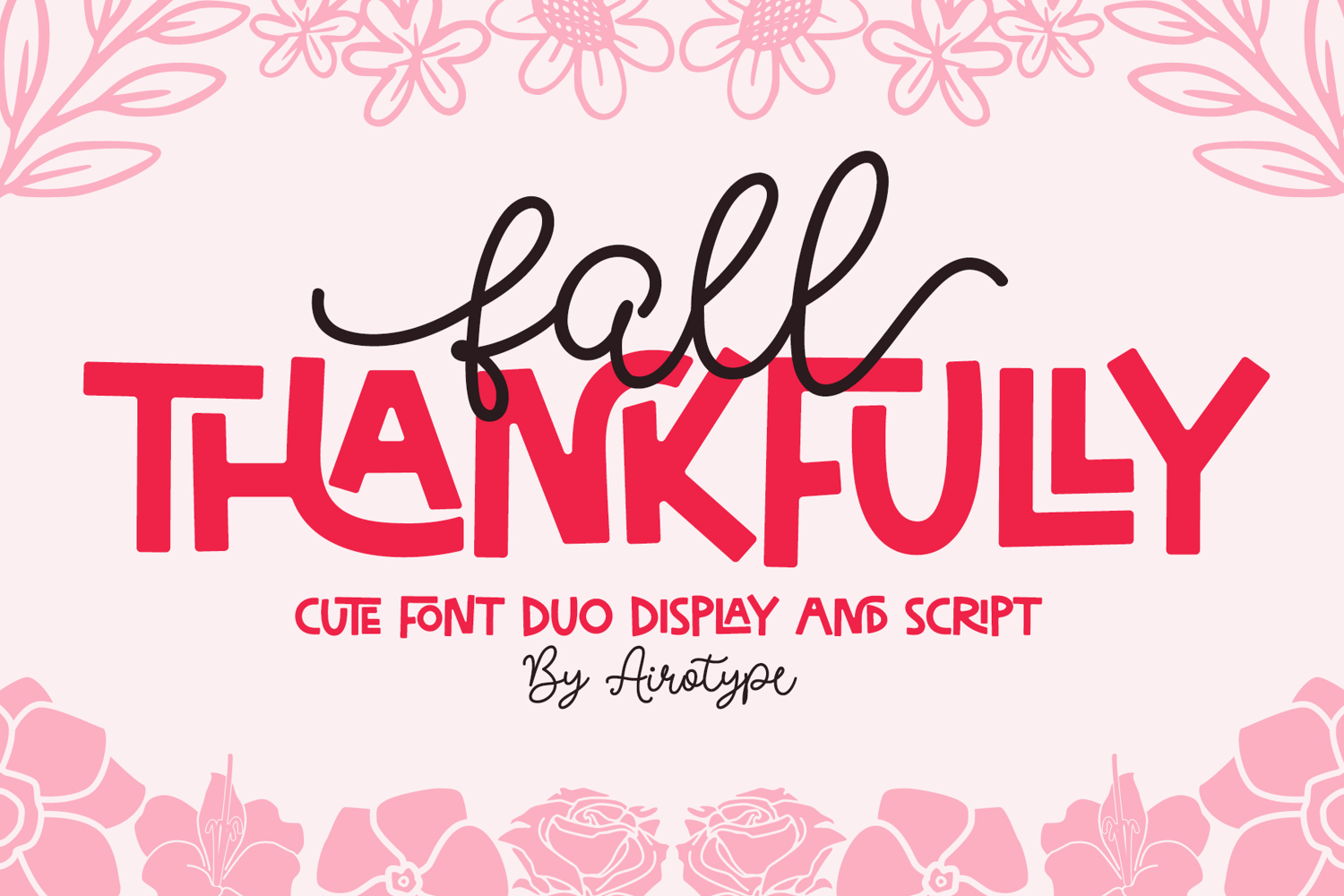
Fall Thankfully is cute font duo, combining monoline script font with swash and all caps bouncy sans serif with ligature.
This font duo radiates fun, festive, and casual vibes. This font pairing will create happy and joyful touch into the design. It can be used separately.
Fall Thankfully is pretty font for lots of design, especially with bright and cute vibes, such as kids, school design, holiday, birthday invitation, summer design, holiday, t-shirt design, crafting, sticker, sublimation, and many more.